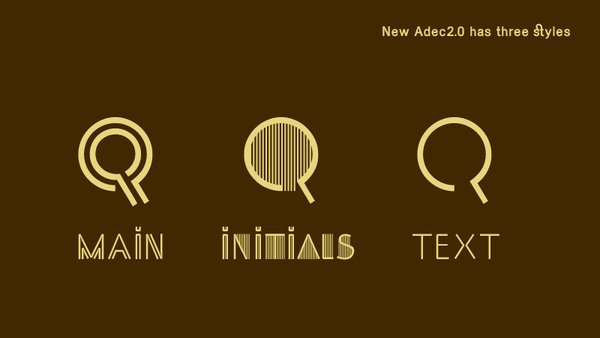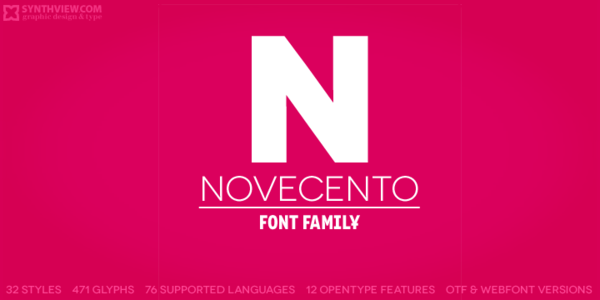
Novecento
Preview of Novacento
Author: Jan Tonellato
Description
: “An uppercase-only font family inspired on european typographic tendencies between the second half of 19th century and first half of the 20th.
Cookie
Preview of Cookie
Author: Ania Kruk
Description
: “Cookie is a script typeface, based on brush calligraphy. It has a little bit of the 1950’s look, that makes you think about all the ads and pin-up girls from that time. It’s sweet and friendly – but not too decorative.”
Adec 2.0
Preview of Adec 2.0
Author: Serge Shi
Description
: Adec 2.0 is a display font with a certain decorative art deco feel to it.
Mate
Preview of Mate
Author: Eduardo Tunni
Description
: “Simple in its structure; sharp and generous counter-shapes which create a medium texture that calls for good page color, in addition to offering a more relaxed reading experience for each line of text: Mate.”